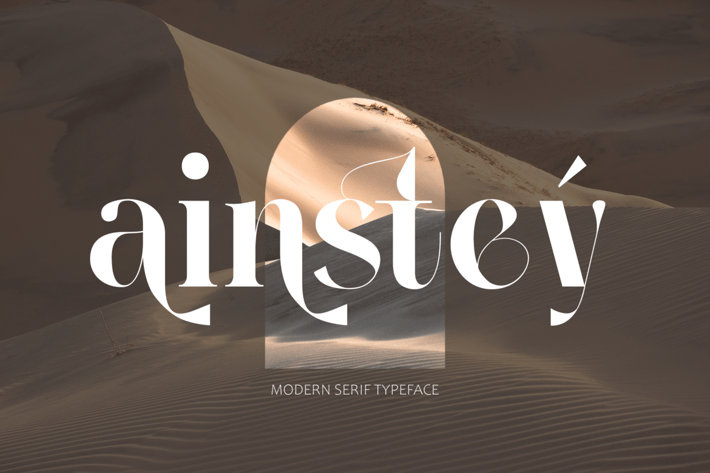
Modern Serif Font
Wish to show off your creativity and get noticed? A perfect blend of elegance and originality will help you stand out from the crowd.
Introducing Ainstey- A Modern Serif Font.
Whether you’re making a web page, an ad, or a poster, Ainstey will live up to its task. As a bonus, it looks equally great on screen and in print. Try it out and see how it can transform your project!
Multilingual & Ligature Support
Full sets of Punctuation and Numerals